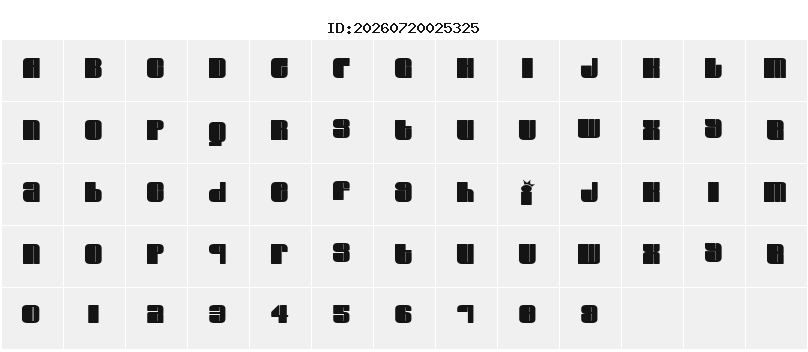
Elvis Preview
• Font Name: Elvis
• Full Font Name: Elvis
About Elvis.ttf
Elvis.ttf is a modern, elegant sans-serif font designed for ultimate readability and visual harmony. Perfect for branding, headlines, web design, and print materials.